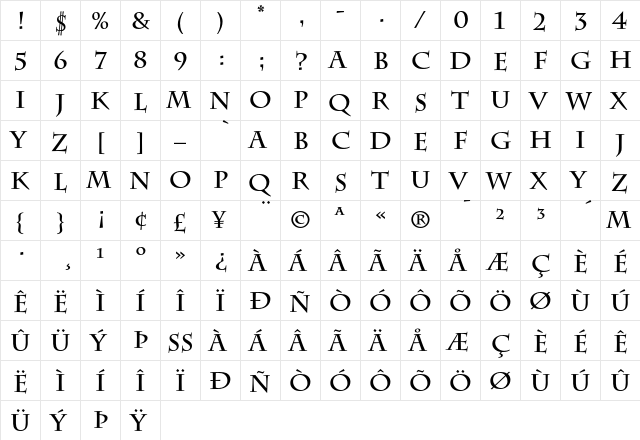
Charlemagne Bold
Design Context for Charlemagne Typeface
Charlemagne is a composed and adaptable typeface that performs quietly and consistently across a wide range of design contexts. Its bold stroke weight gives it real presence on the page.
Pro Tip: Use Charlemagne in both headline and body roles to test its range before committing to a single application.